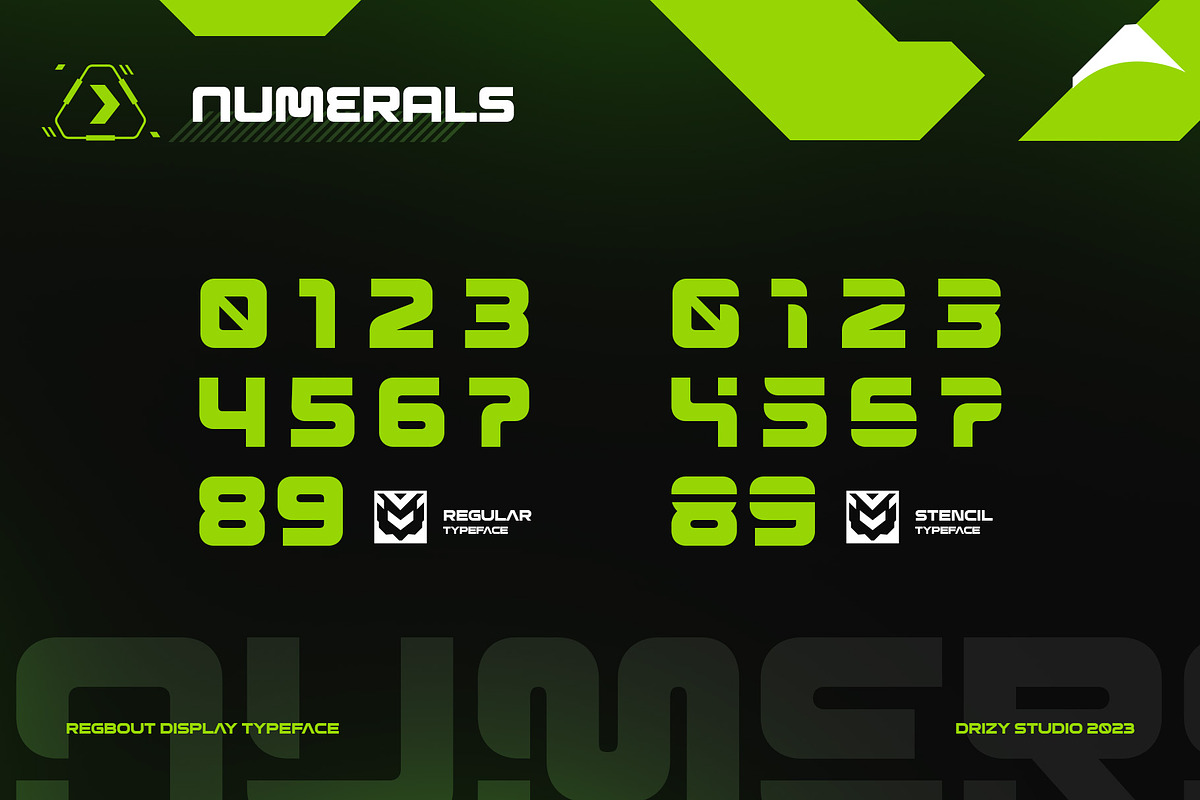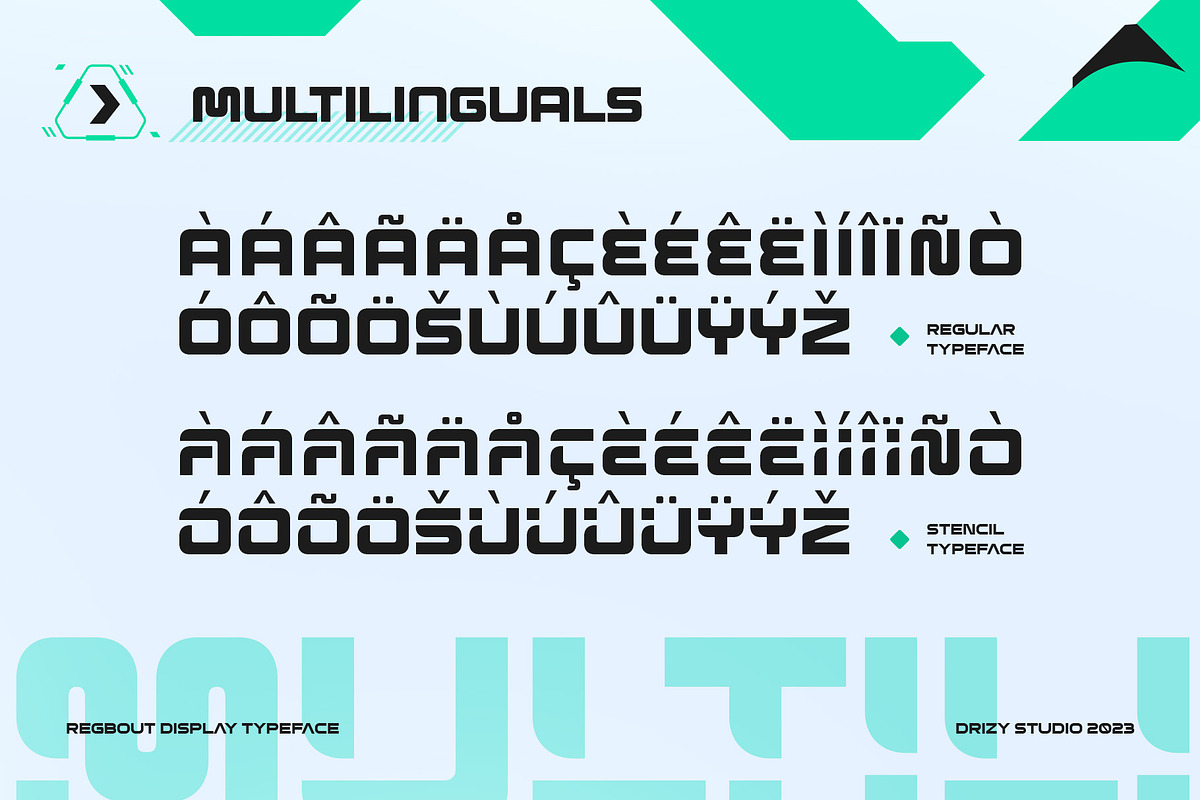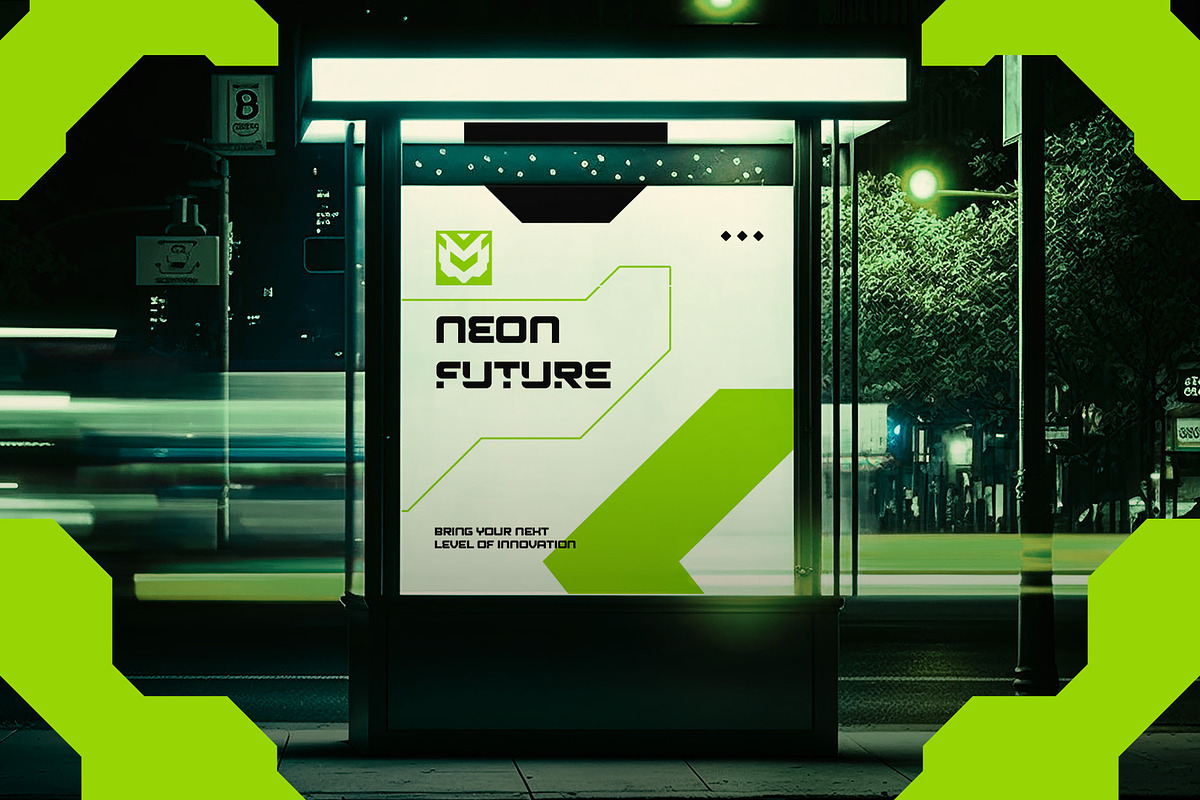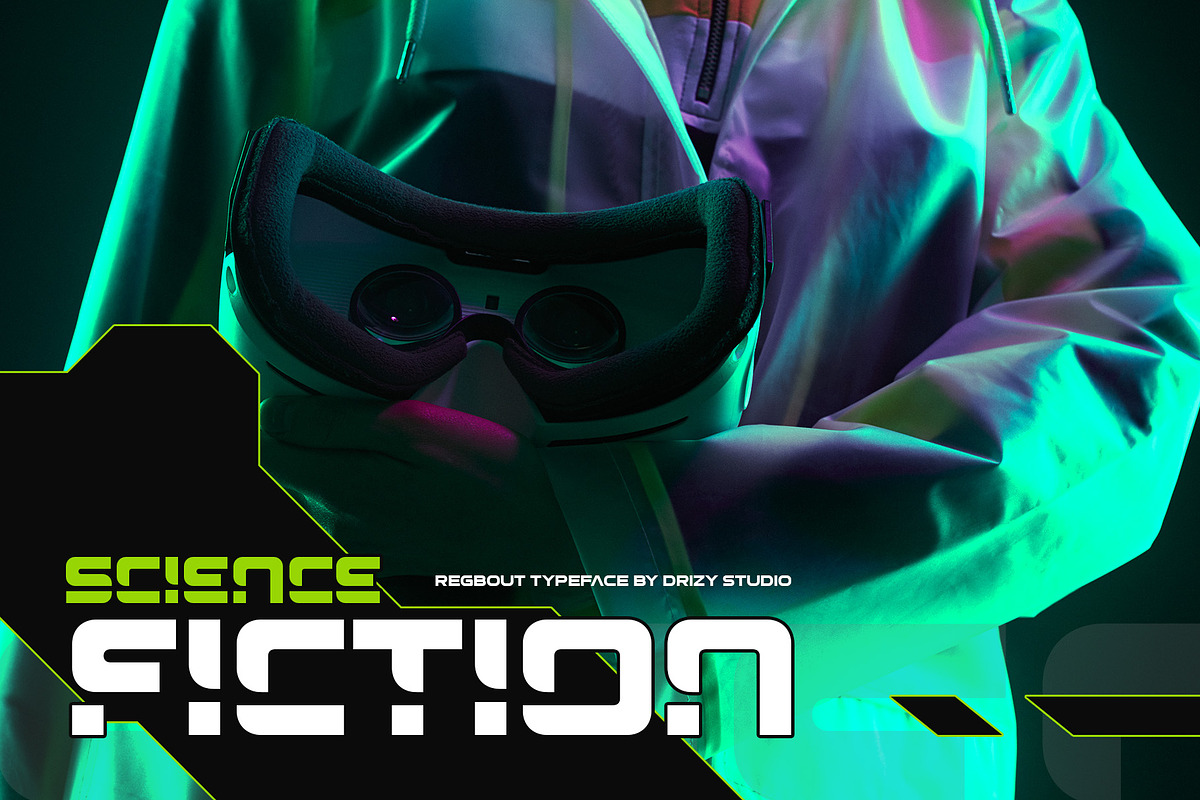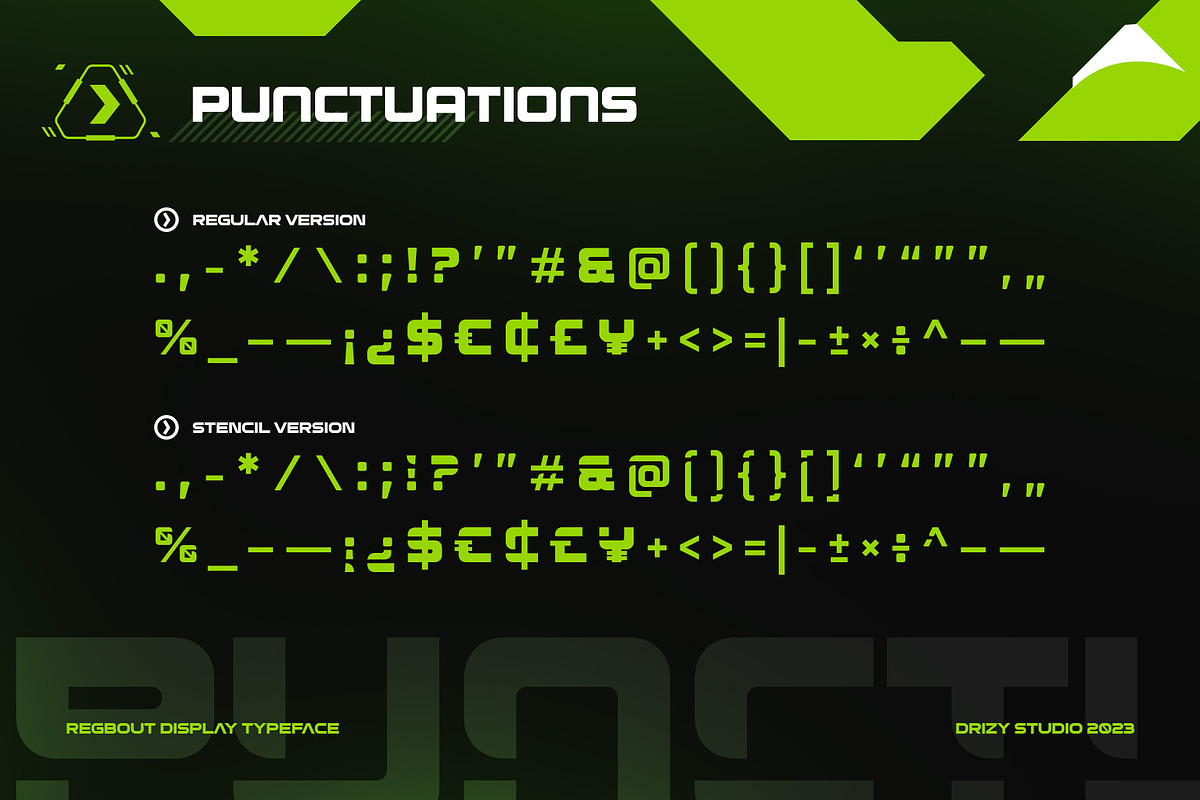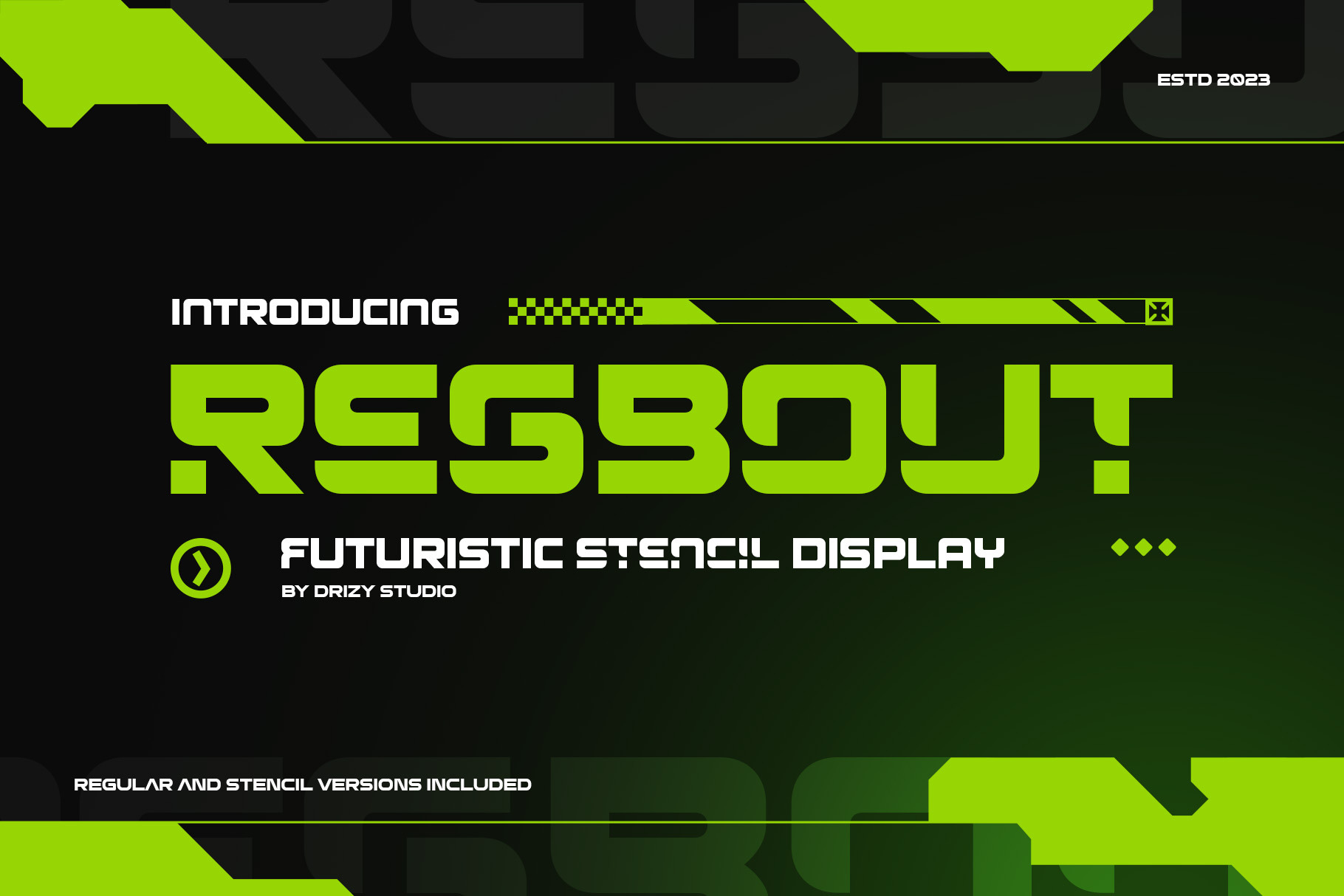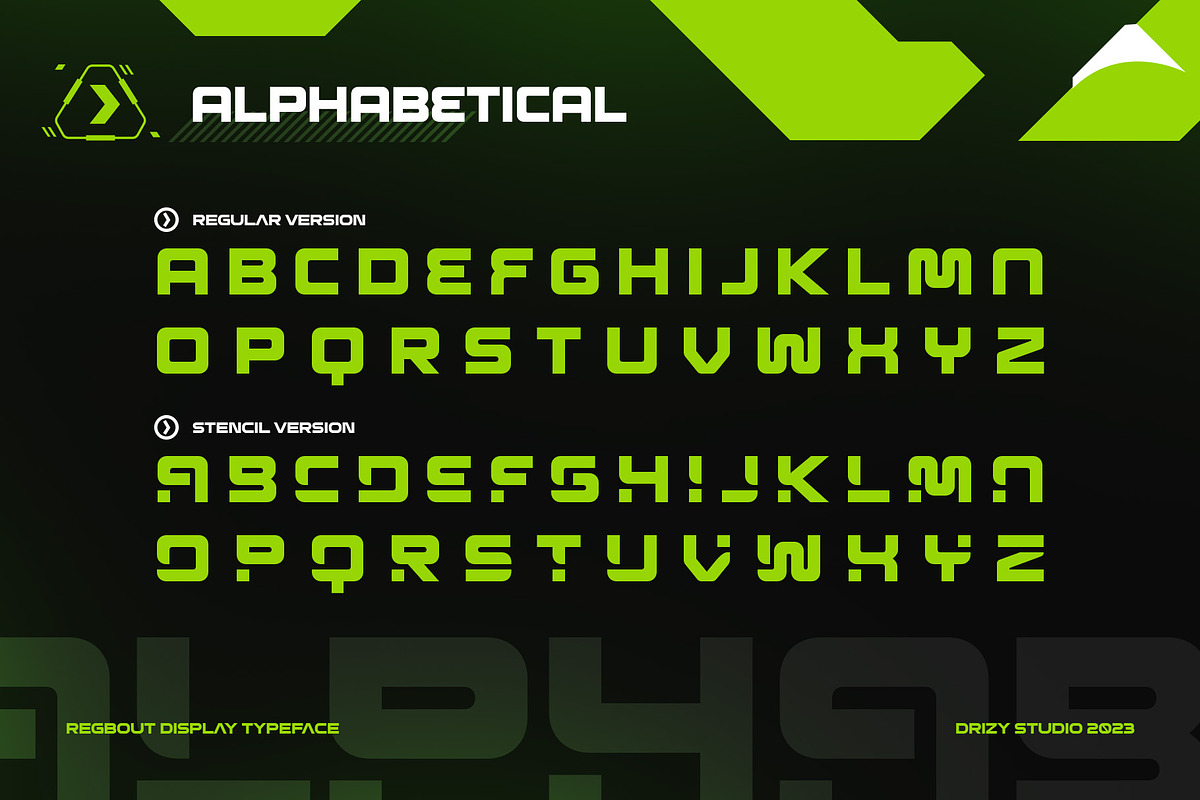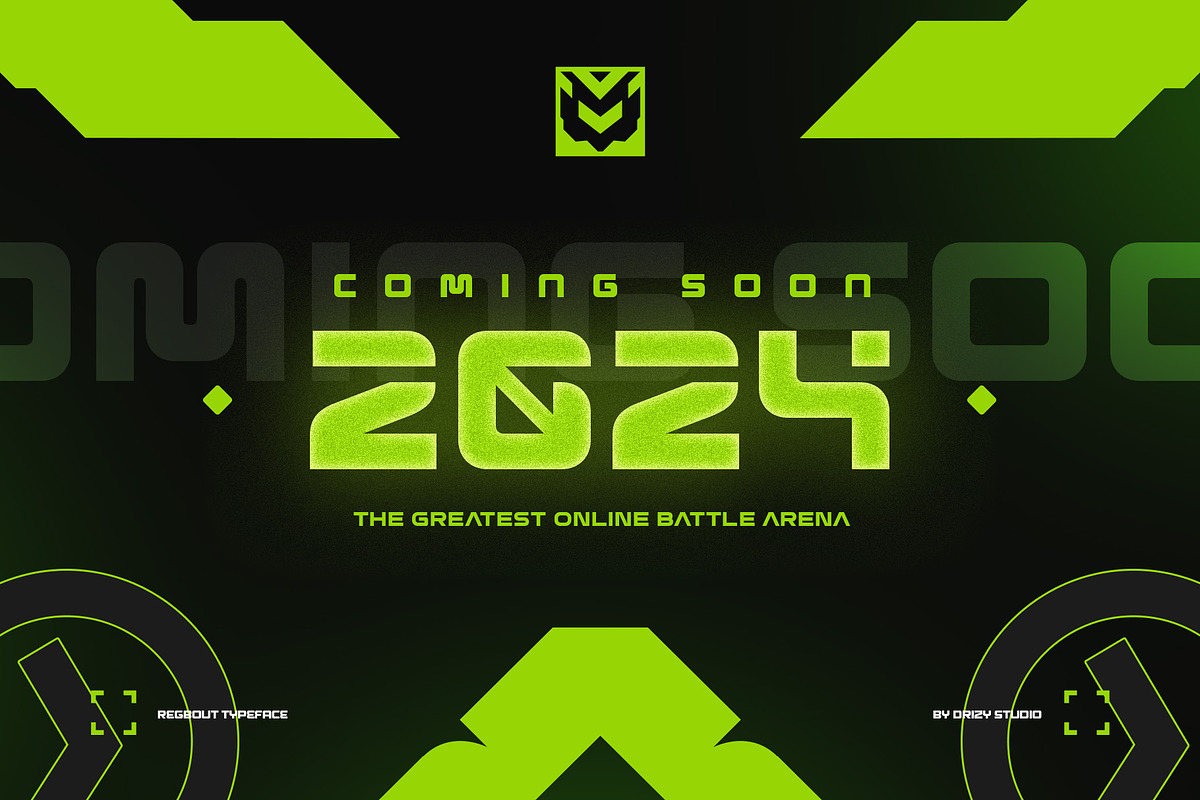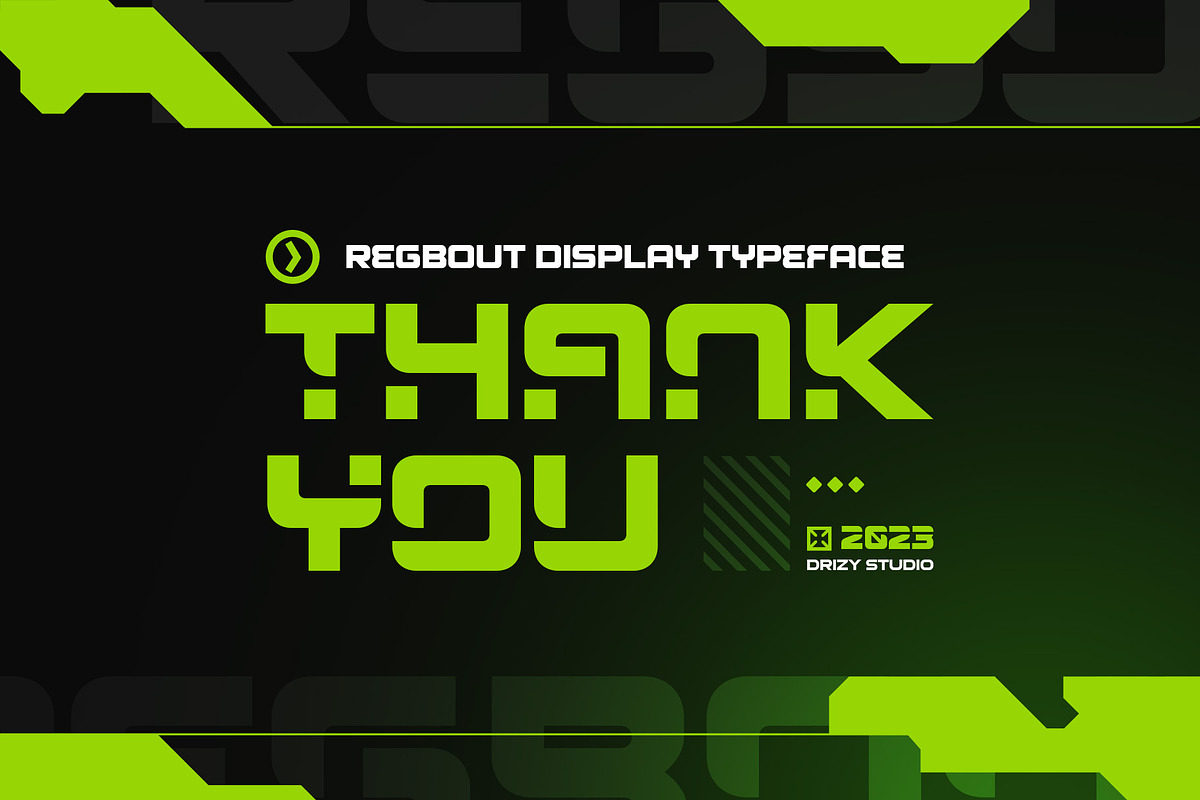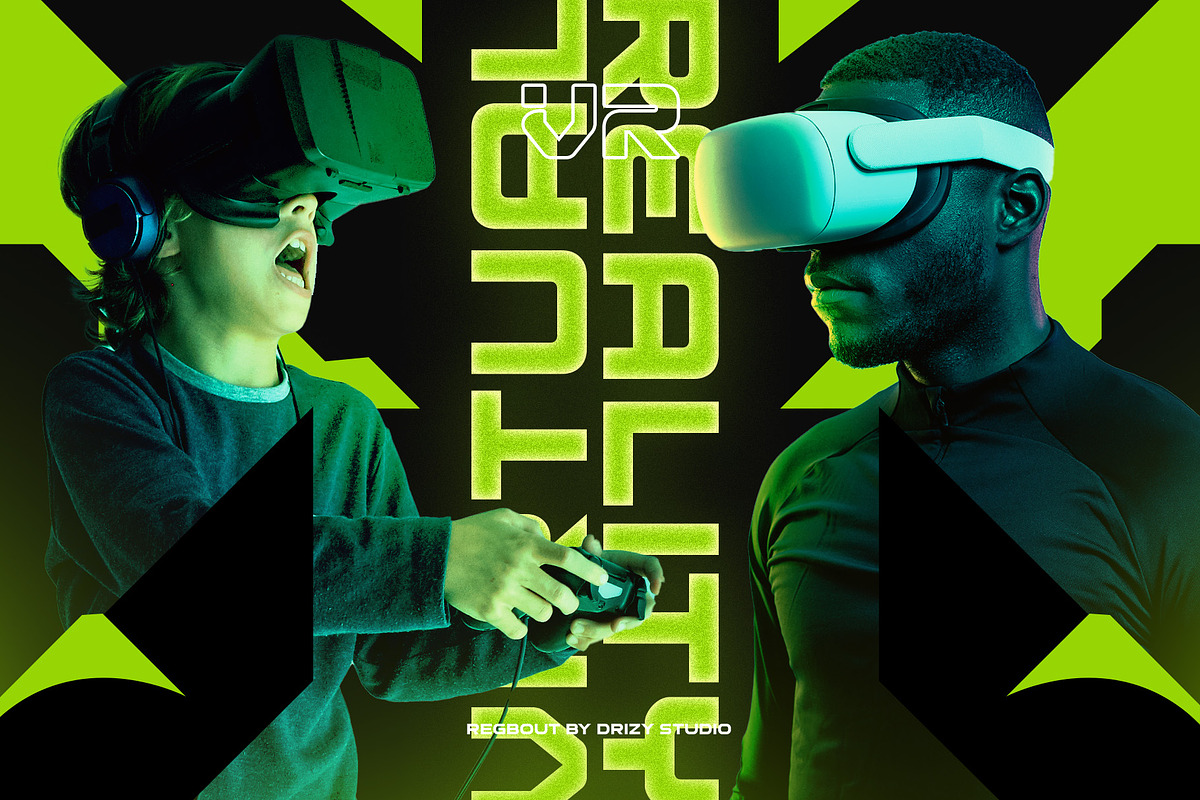
Regbot - Futuristic Stencil Font
Regbot - Futuristic Stencil Font is a cutting-edge typeface that effortlessly blends modern aesthetics with a touch of industrial design. This versatile font family is designed to make your projects stand out, giving them a futuristic, high-tech look that captures attention and leaves a lasting impression.
Regbot features: Character Set Variable: Regular & Stencil Punctuation & Numbers Multilingual Support